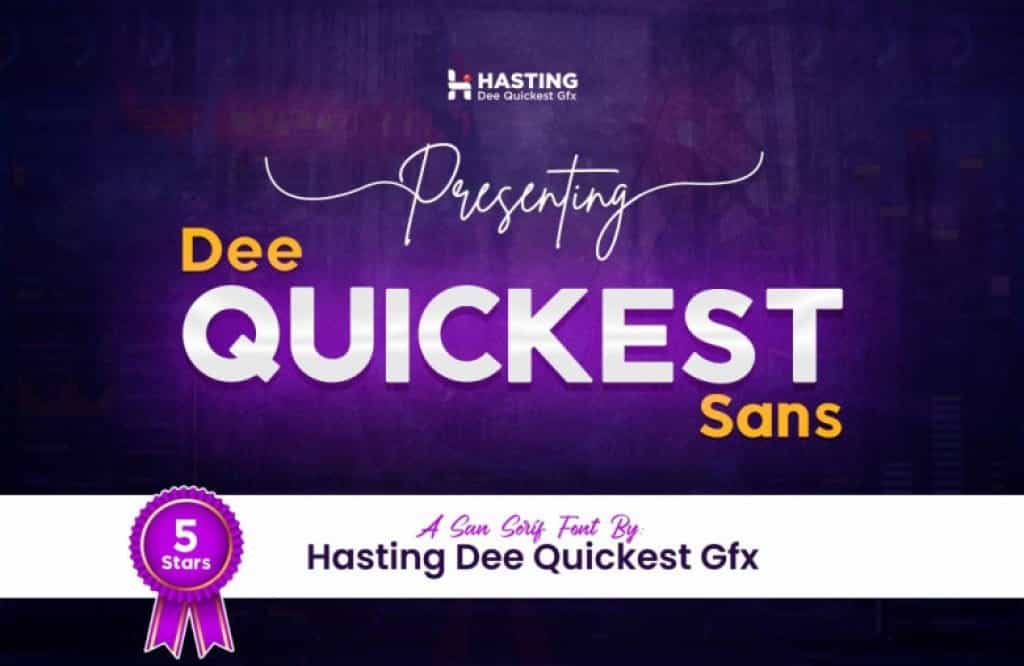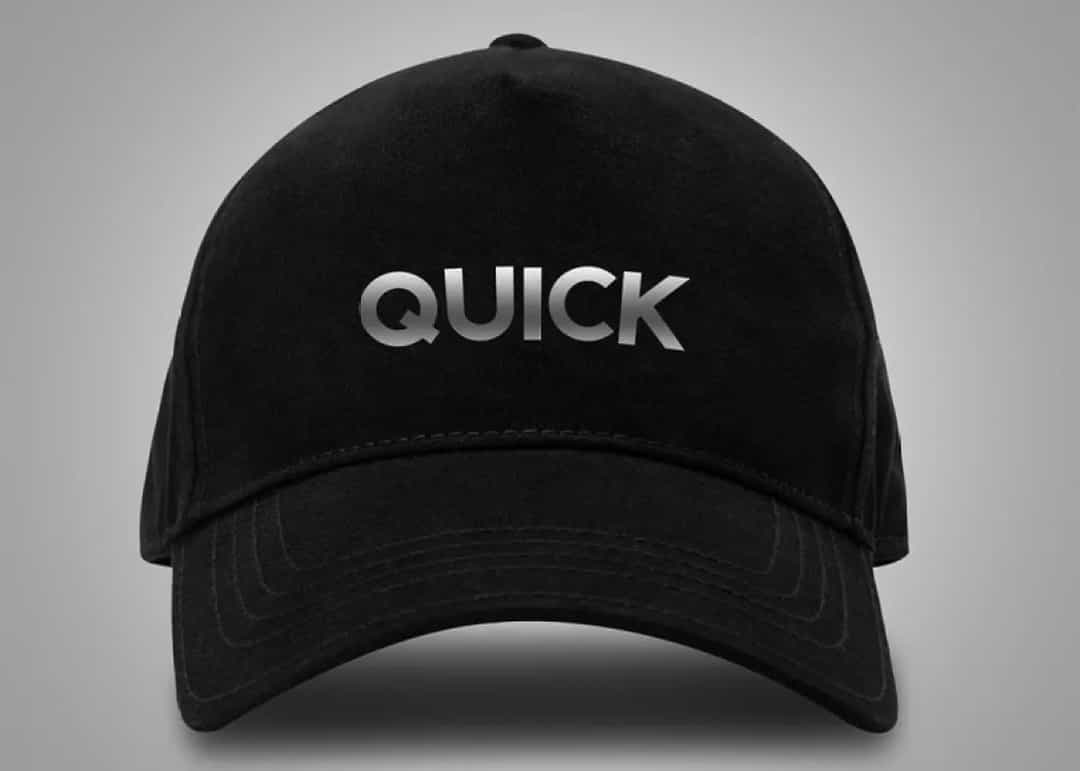
The Dee Quickest Sans Font represents the essence of the modern typography design that combines the accuracy and the minimalism in the one typeface. Due to its precise, blocks of letters and clear outlines, Dee-Quickest Sans is ideal for modern and business-like designs.